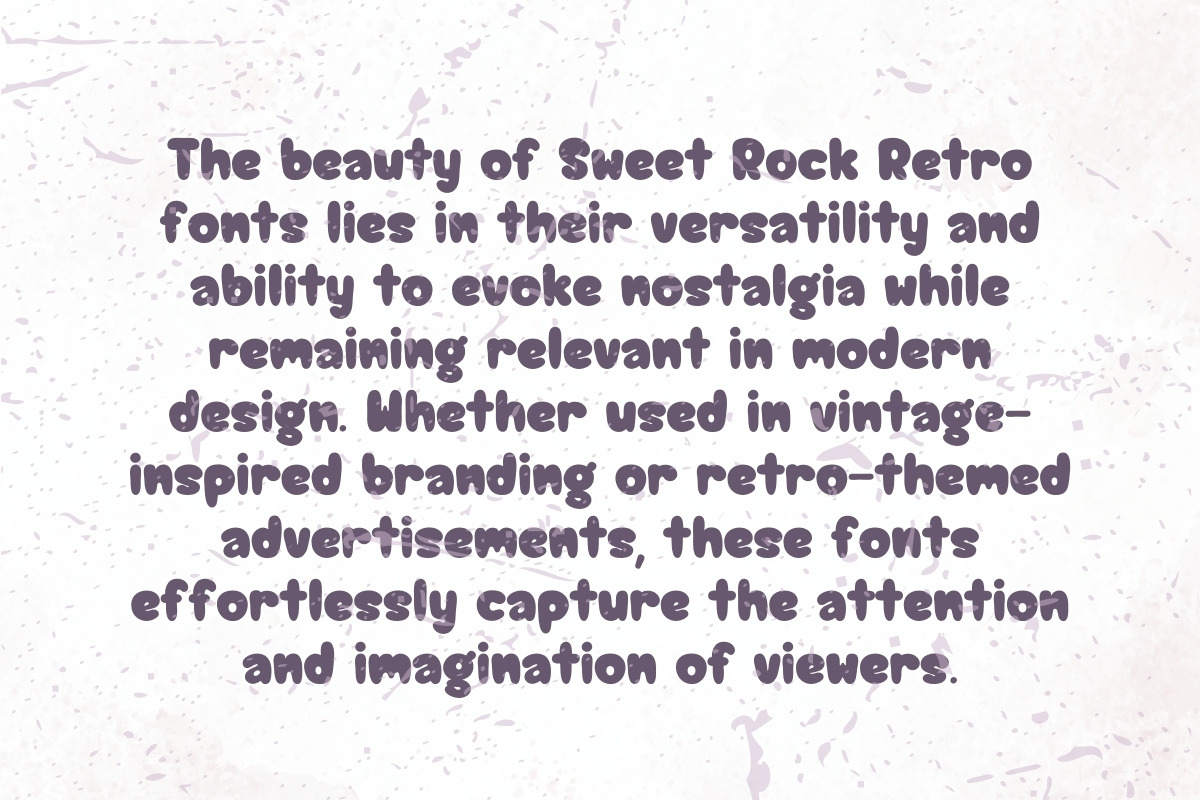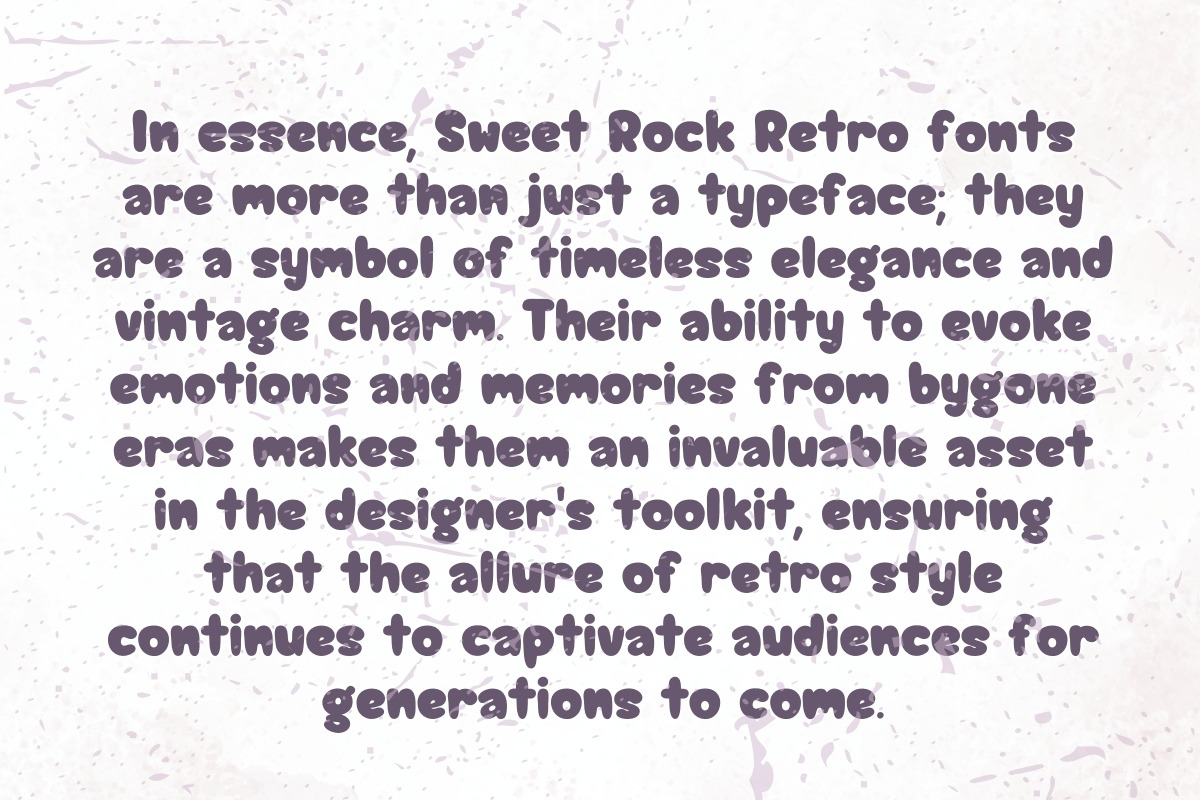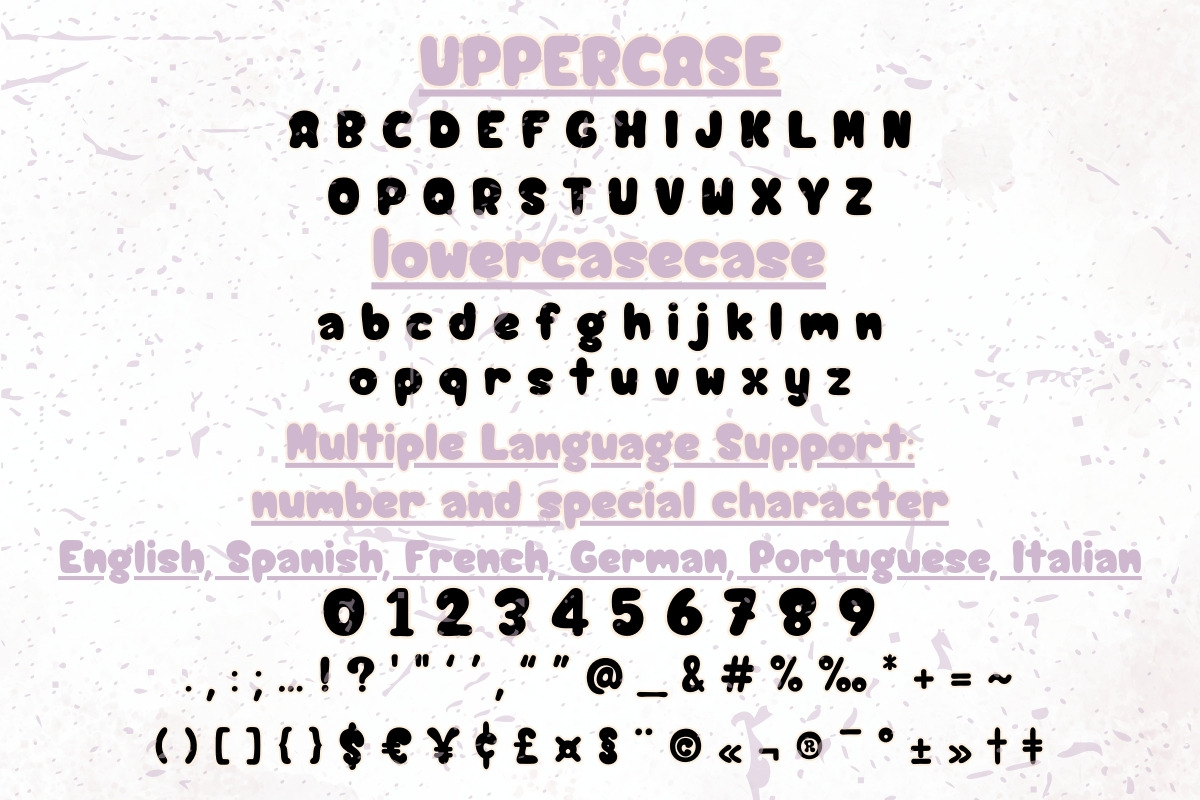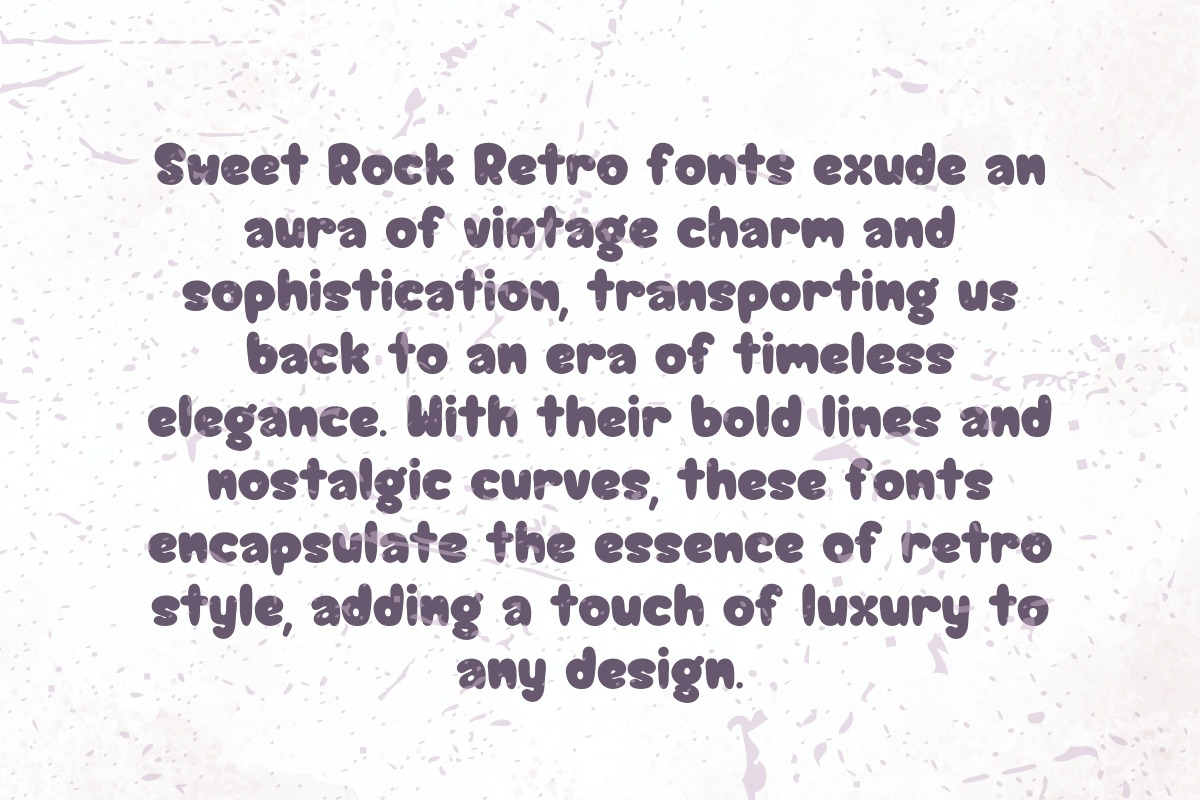
Sweet Rock Retro - Handwriting
"Step into a world of nostalgia with Sweet Rock Retro, a charming handwritten font that brings back the essence of retro design with a modern twist. Each letter is carefully crafted to exude a playful yet elegant vibe, making it perfect for adding a touch of whimsy to your projects. Whether you're designing invitations, posters, or social media graphics, Sweet Rock Retro adds a delightful charm that is sure to captivate your audience."